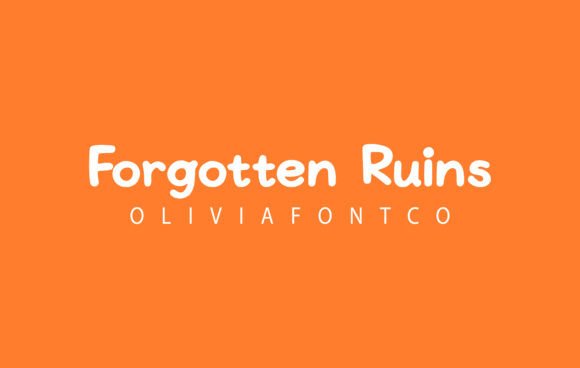
Uncovering the Charm of Forgotten Ruins Font: A Romantic Handwritten Typeface
In the realm of typography, few fonts manage to capture the essence of romance and whimsy as effectively as the Forgotten Ruins font. This authentic handwritten font has been expertly designed to evoke a sense of nostalgia and elegance, making it a true favorite among designers and creative enthusiasts alike. With its unique blend of legibility and aesthetic appeal, Forgotten Ruins is poised to elevate your creative projects to new heights.
The Allure of Forgotten Ruins Font
Forgotten Ruins font is characterized by its distinctive handwritten style, which exudes a romantic touch that is hard to resist. The font’s design is a masterful blend of classic elegance and modern flair, making it an excellent choice for a wide range of applications. Whether you’re looking to create eye-catching magazine headlines, charming social media graphics, or elegant wedding invitations, Forgotten Ruins is the perfect typeface to bring your creative vision to life.
Key Features of Forgotten Ruins Font
- Authentic Handwritten Style: Forgotten Ruins font boasts an authentic handwritten look that adds a personal touch to your designs.
- Romantic Touch: The font’s elegant and whimsical design makes it perfect for projects that require a romantic or vintage feel.
- Legibility: Despite its ornate appearance, Forgotten Ruins font is remarkably legible, making it suitable for use as both title and body text.
- Versatility: This font can be used for a wide range of design applications, including magazine headlines, social media graphics, branding, wedding invitations, and more.
Design Applications for Forgotten Ruins Font
Forgotten Ruins font is an incredibly versatile typeface that can be used in various design contexts. Here are some ideas to get you started:
Magazine Headlines and Editorials
Add a touch of elegance to your magazine headlines and editorials with Forgotten Ruins font. Its unique style is sure to capture readers’ attention and set your publication apart from the rest.
Social Media Graphics
Create charming social media graphics that showcase your brand’s personality with Forgotten Ruins font. Its romantic touch is perfect for creating engaging and shareable content.
Wedding Invitations and Stationery
Make your wedding invitations and stationery truly special with Forgotten Ruins font. Its elegant design and romantic touch will add a touch of sophistication to your wedding stationery.
Branding and Packaging
Use Forgotten Ruins font to create a unique and memorable brand identity. Its distinctive style will help your brand stand out and leave a lasting impression on customers.
Why Choose Forgotten Ruins Font?
With so many fonts available, why choose Forgotten Ruins font for your design projects? Here are a few compelling reasons:
Unique Style
Forgotten Ruins font boasts a unique and distinctive style that will set your designs apart from the rest.
Legibility and Versatility
This font is not only beautiful but also highly legible and versatile, making it perfect for a wide range of design applications.
Elegance and Sophistication
Forgotten Ruins font adds a touch of elegance and sophistication to any design, making it perfect for projects that require a romantic or vintage feel.
In conclusion, Forgotten Ruins font is a true gem in the world of typography. Its unique blend of elegance, romance, and legibility makes it an excellent choice for designers and creative enthusiasts looking to add a touch of sophistication to their projects. Whether you’re working on magazine headlines, social media graphics, wedding invitations, or branding, Forgotten Ruins font is sure to exceed your expectations.